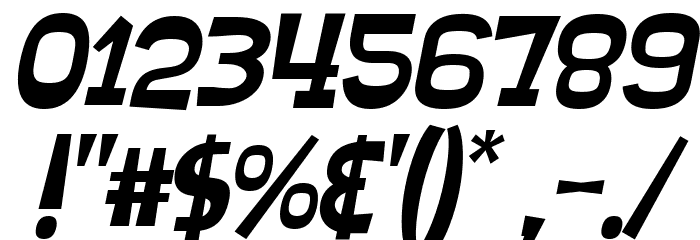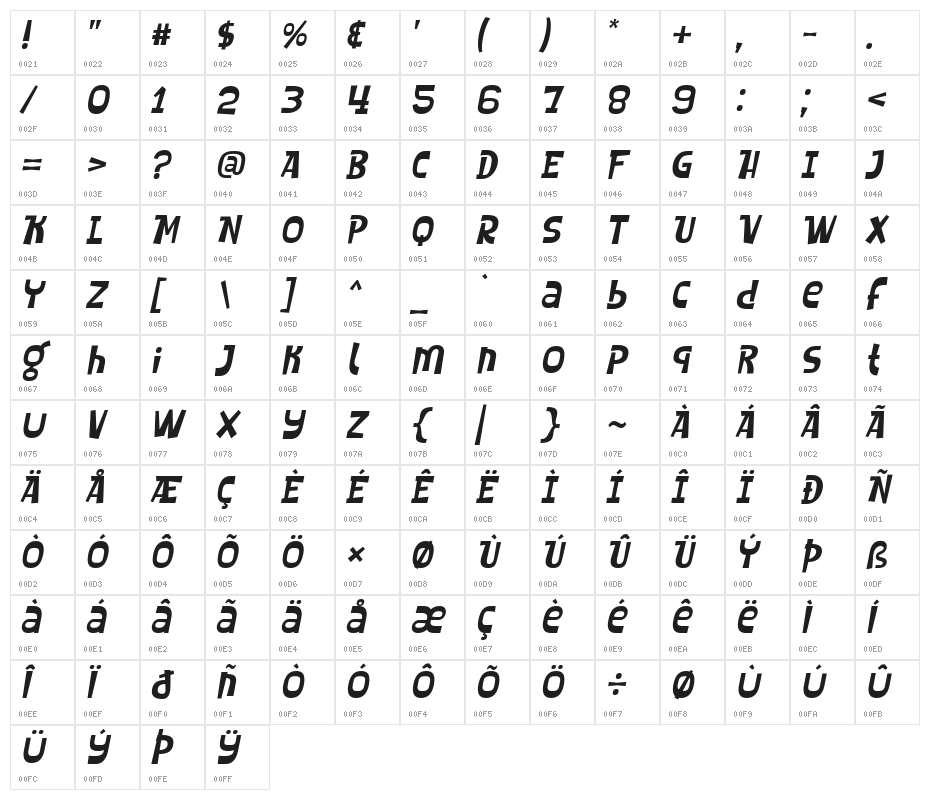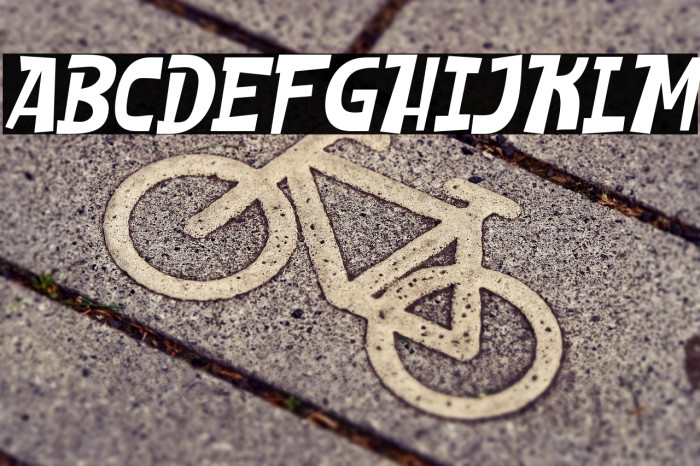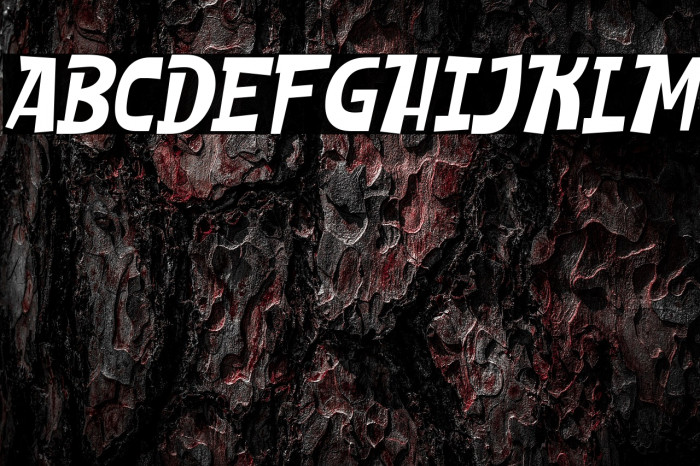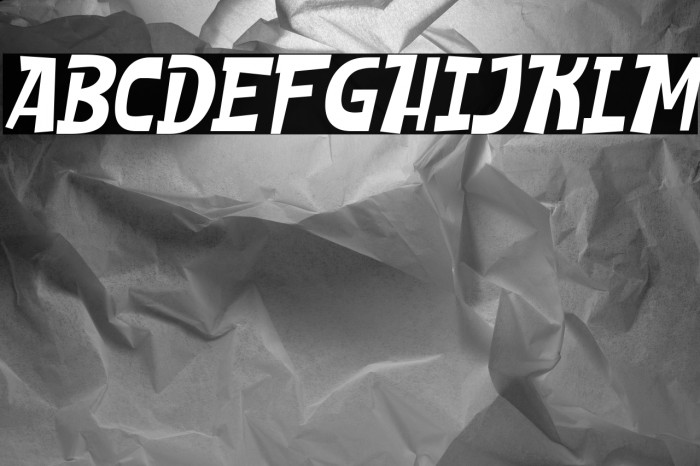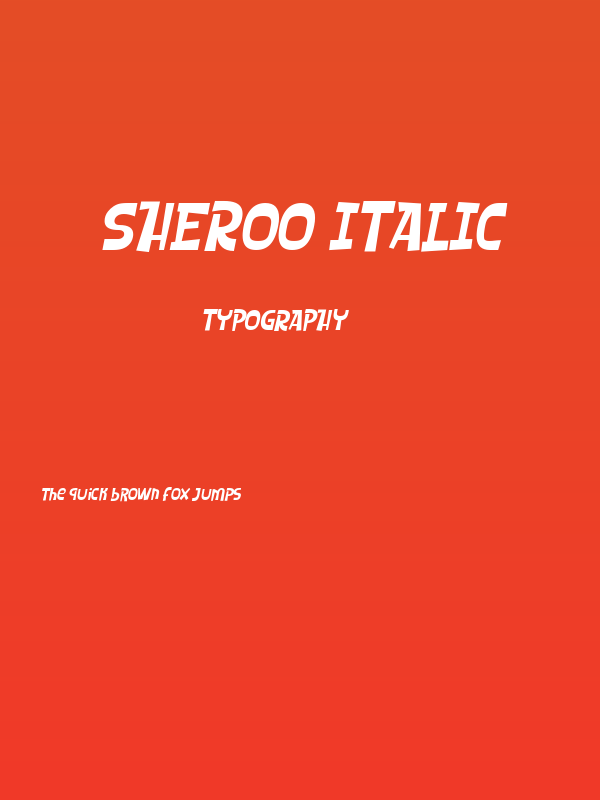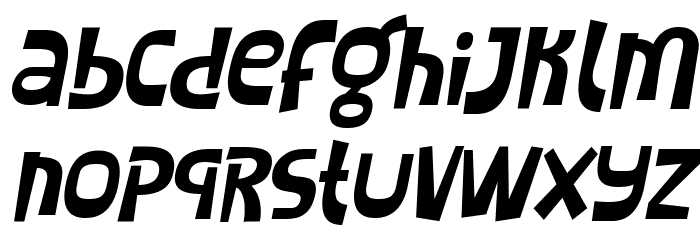
SHEROO Italic Font
SHEROO Italic Description
This font features a dynamic and energetic italic style with a modern twist. The characters are slightly slanted, giving a sense of motion and fluidity. The strokes are bold and consistent, providing a strong visual impact. The uppercase letters are particularly striking, with unique angles and curves that add to the font's distinctive appearance. The lowercase letters maintain the same boldness, ensuring readability while still being visually engaging. Numbers and special characters are designed to match the overall style, making this font versatile for various applications.